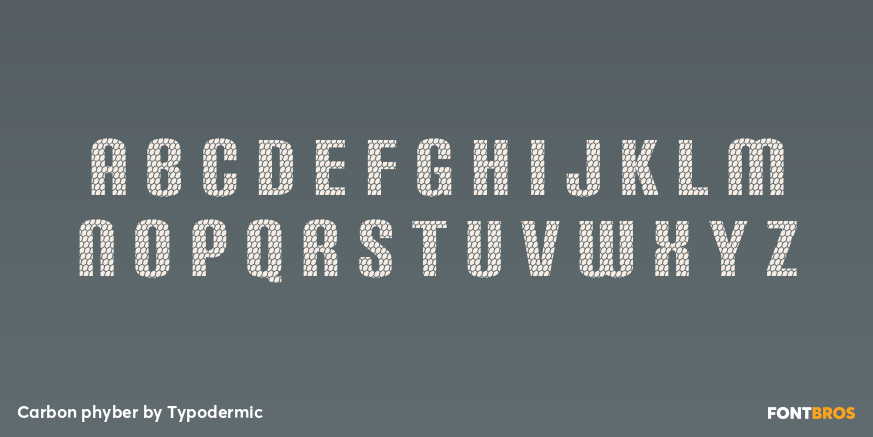
Carbon phyber
Carbon Phyber rebuilds Carbon’s blunt letterforms from a dense technical mesh, giving the strokes the speckled, woven appearance of carbon-fiber cloth and perforated composite material. It keeps the family’s compact impact but replaces solid mass with a surface that feels engineered, lightweight, and performance-driven.
Use Phyber for motorsport graphics, bicycle and drone branding, performance auto parts, protective equipment, gaming hardware, esports titles, and product launches built around advanced materials. The texture is strongest in large names and short statements; combine it with Carbon Black or Regular for specifications, model numbers, and secondary information.